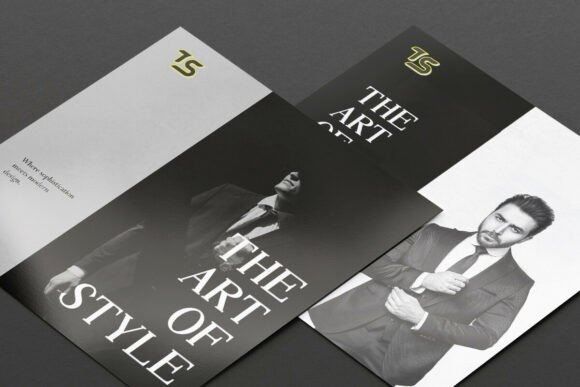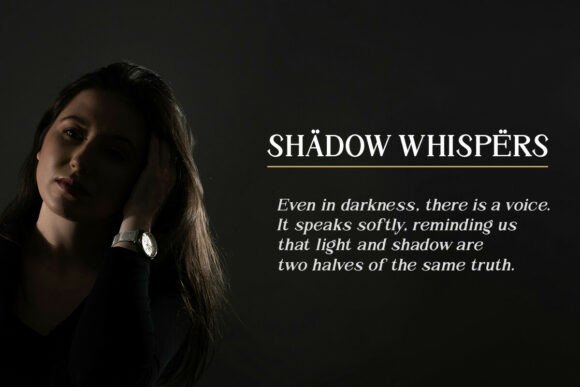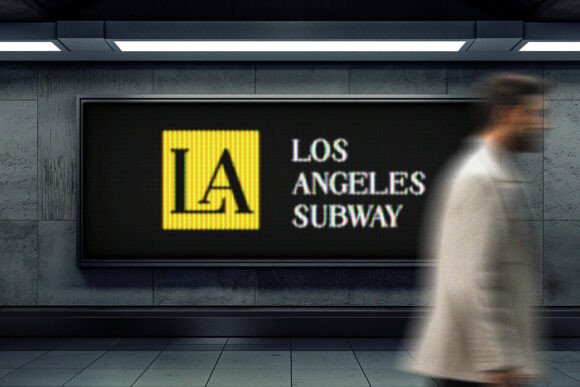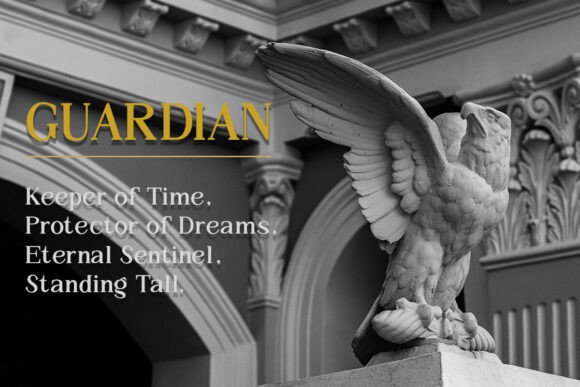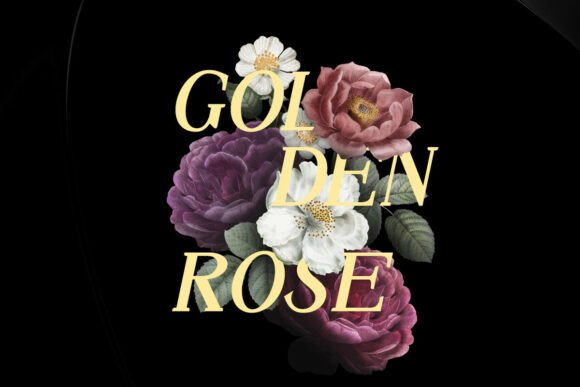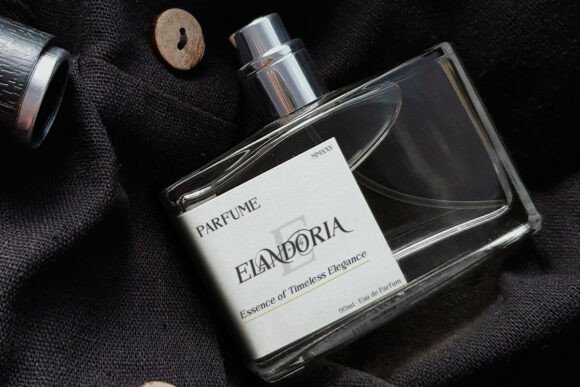
Elegance Redefined: Discover the Timeless Beauty of Elandoria Font
In the world of typography, few fonts manage to strike a balance between classic sophistication and modern minimalism. Elandoria font, however, effortlessly merges these seemingly disparate elements, creating a luxury serif typeface that elevates every design with refinement and poise. Whether you’re a designer, craftsperson, or simply someone with an eye for detail, Elandoria is sure to captivate with its elegant forms and artistic charm.
The Essence of Elandoria: A Harmonious Blend of Classic and Modern
At the heart of Elandoria’s allure lies its masterful contrast between thick and thin strokes. This deliberate design choice imbues the font with a sense of dynamism, while its unique curved serifs add a touch of sophistication. The result is a harmonious blend of classic elegance and modern minimalism, making Elandoria an ideal choice for a wide range of design applications.
Multilingual Support and Typographic Features
Elandoria font is more than just a pretty face. It also boasts an impressive array of typographic features, including full multilingual support, alternates, and ligatures. This ensures that designers can create complex, visually appealing text with ease, regardless of the language or script. Whether you’re working on a branding project, editorial layout, or upscale packaging, Elandoria’s versatility has got you covered.
Perfect for Luxury Projects
So, what makes Elandoria the perfect choice for luxury projects? For starters, its elegant forms and refined aesthetic evoke a sense of high-end quality, making it ideal for applications such as:
- Branding: Create a lasting impression with Elandoria’s sophisticated, high-end feel.
- Editorial layouts: Elevate your publications with a font that exudes refinement and poise.
- Wedding invitations: Make your special day even more memorable with Elandoria’s elegant, cursive charm.
- Fashion magazines: Keep your readers engaged with a font that’s as stylish as the designs you’re showcasing.
- Upscale packaging: Add a touch of luxury to your products with Elandoria’s sophisticated, high-end aesthetic.
Readability Meets Artistry
One of the standout features of Elandoria font is its ability to balance readability with artistic charm. Each letter is carefully crafted to convey a sense of poise and sophistication, making it perfect for designs where clarity and aesthetics are paramount. Whether you’re working on a large-scale project or a small, intricate design, Elandoria ensures that your message is conveyed with elegance and refinement.
PUA-Encoded for Effortless Customization
Elandoria font is also PUA-encoded, making it easy to access all glyphs, swashes, and alternate characters. This means you can customize your creations with ease, adding a personal touch to your designs without the need for complex software or technical expertise.
In conclusion, Elandoria font is a true masterpiece of typography. Its elegant forms, refined aesthetic, and impressive array of typographic features make it the perfect choice for designers and craftspersons looking to elevate their designs. Whether you’re working on a luxury project or simply want to add a touch of sophistication to your creations, Elandoria is sure to impress. So why wait? Discover the timeless beauty of Elandoria font today and let its elegant forms bring depth, class, and beauty to your designs.
With Elandoria, you can:
- Elevate your designs with a luxury serif typeface that’s both elegant and refined.
- Take advantage of full multilingual support, alternates, and ligatures for added versatility.
- Enjoy effortless customization with PUA-encoded glyphs, swashes, and alternate characters.
- Perfect for branding, editorial layouts, wedding invitations, fashion magazines, and upscale packaging.
Experience the artistry and sophistication of Elandoria font. Try it today and discover a world of limitless design possibilities!